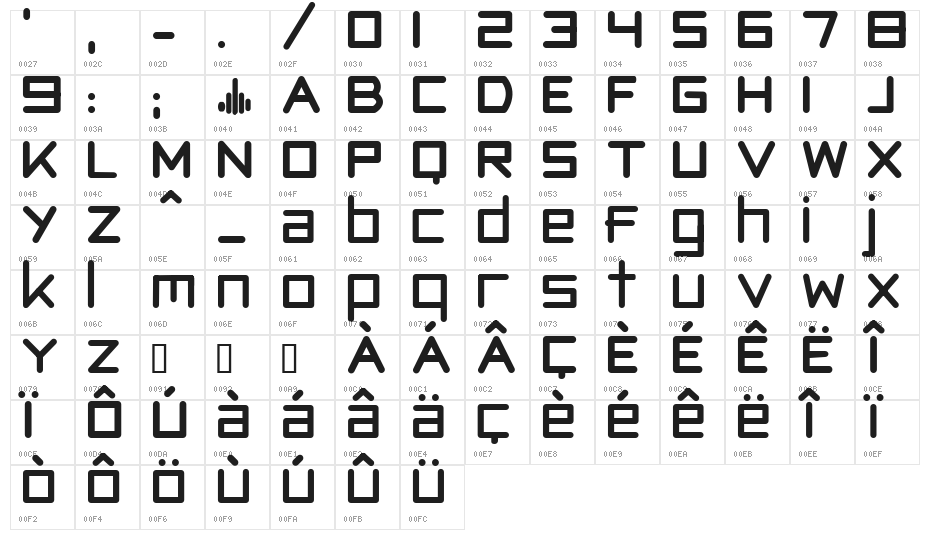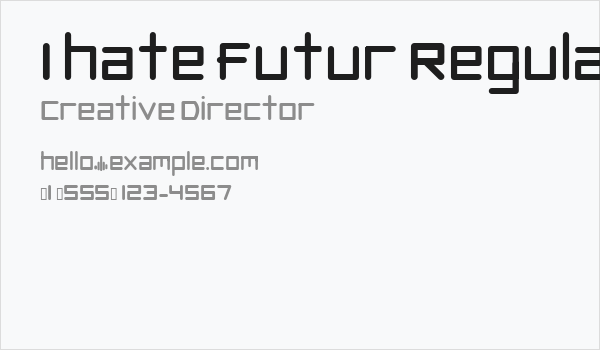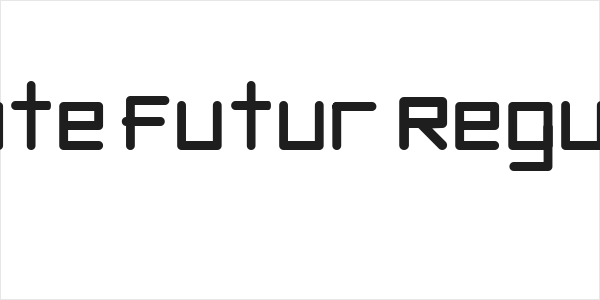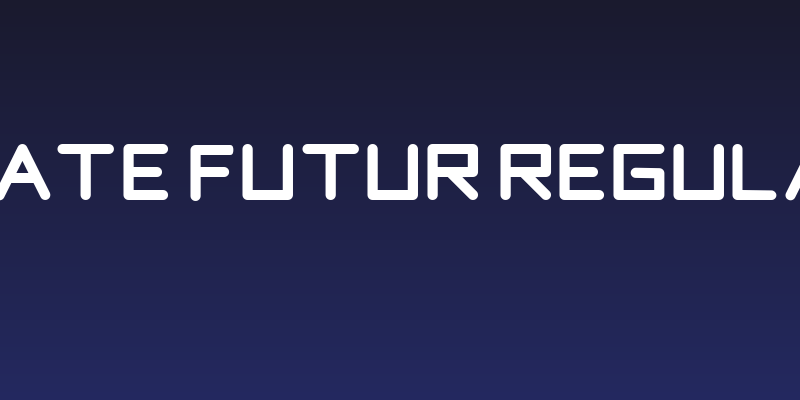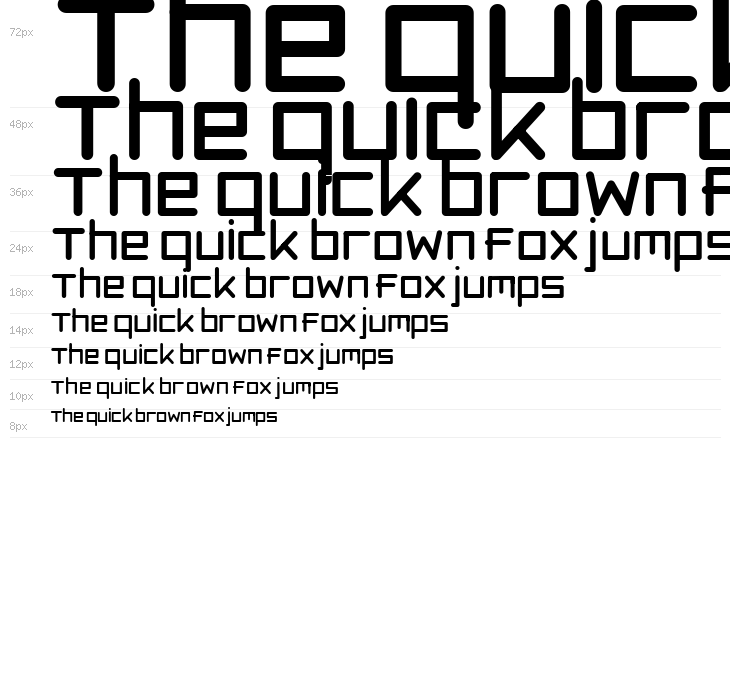
I hate futur Regular Font
I hate futur Regular Description
This font exhibits a futuristic and geometric design with a strong emphasis on clean lines and rounded edges. The uppercase and lowercase letters maintain a consistent height, creating a uniform appearance. The characters are constructed with a monospaced style, giving each letter equal width, which enhances readability and provides a structured look. The numerals and special characters follow the same design principles, ensuring a cohesive appearance across all glyphs. The overall aesthetic is modern and minimalistic, making it suitable for projects that require a contemporary and sleek look.
| Use Case | Headlines, Logos, Digital interfaces |
| Proposed Projects | Ideal for tech branding, digital interfaces, and modern advertising. |